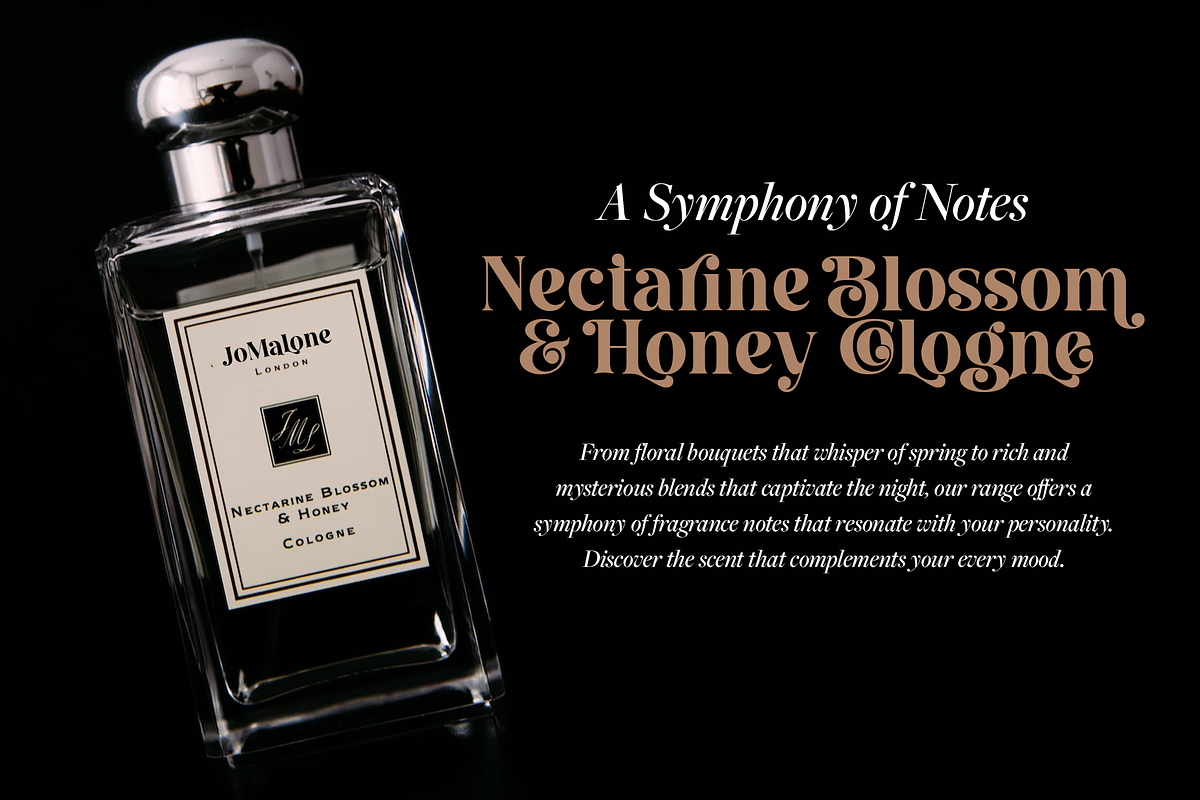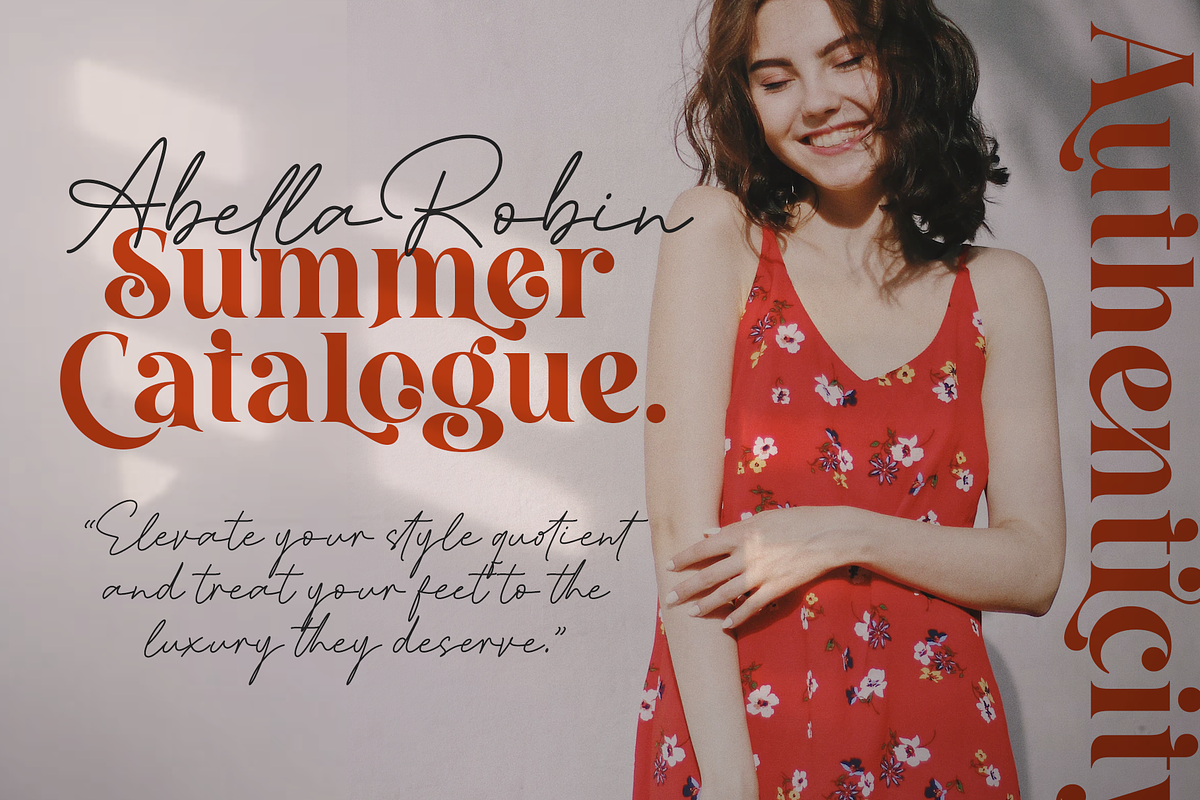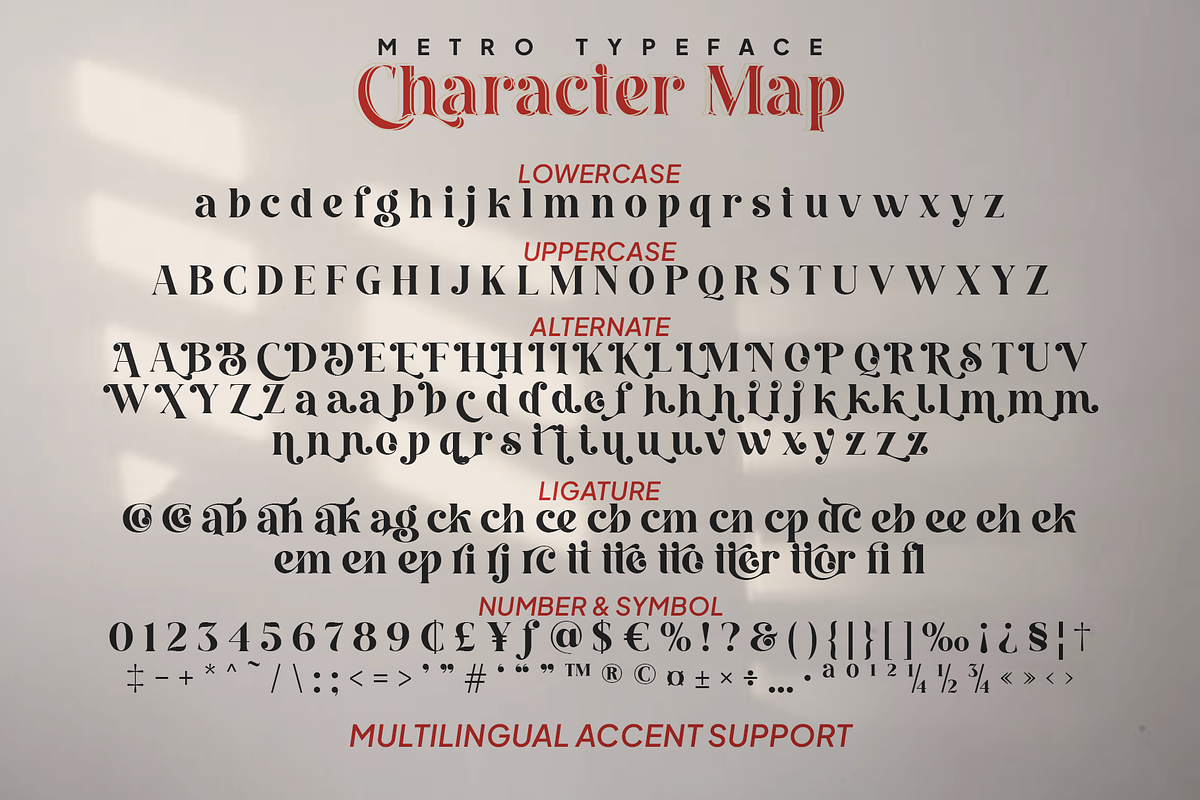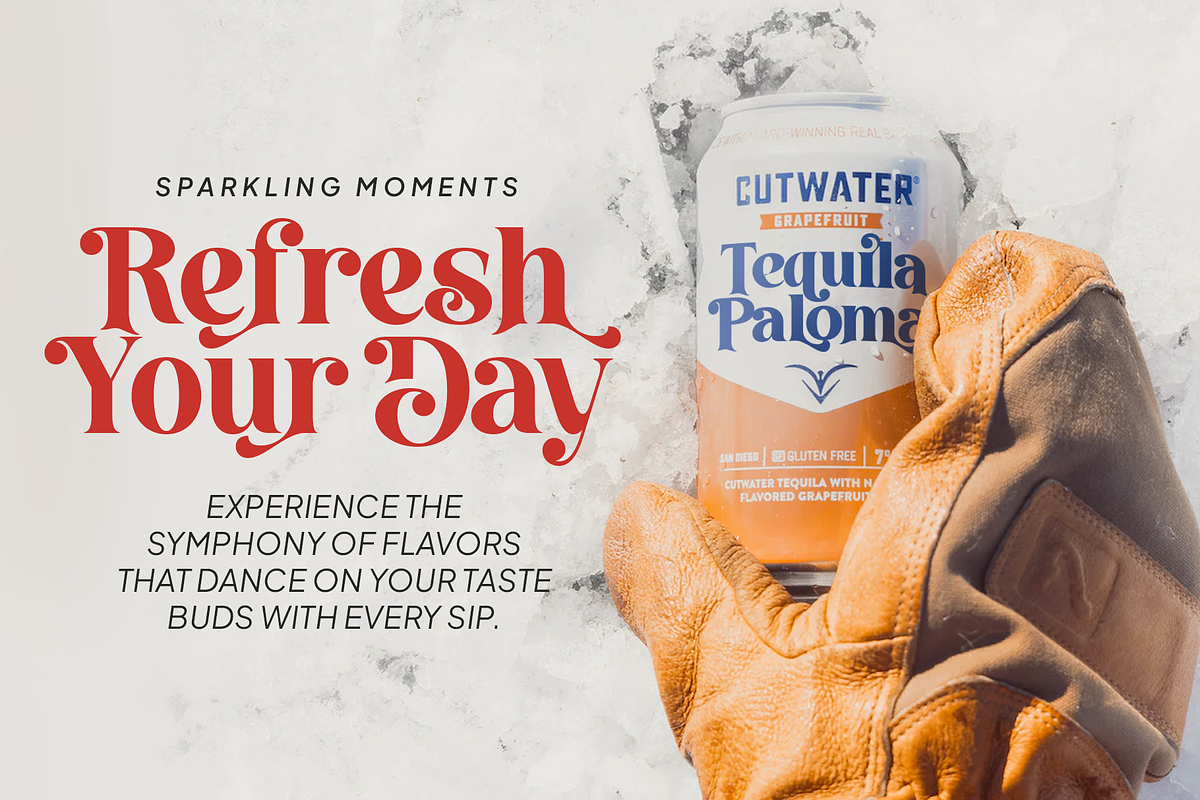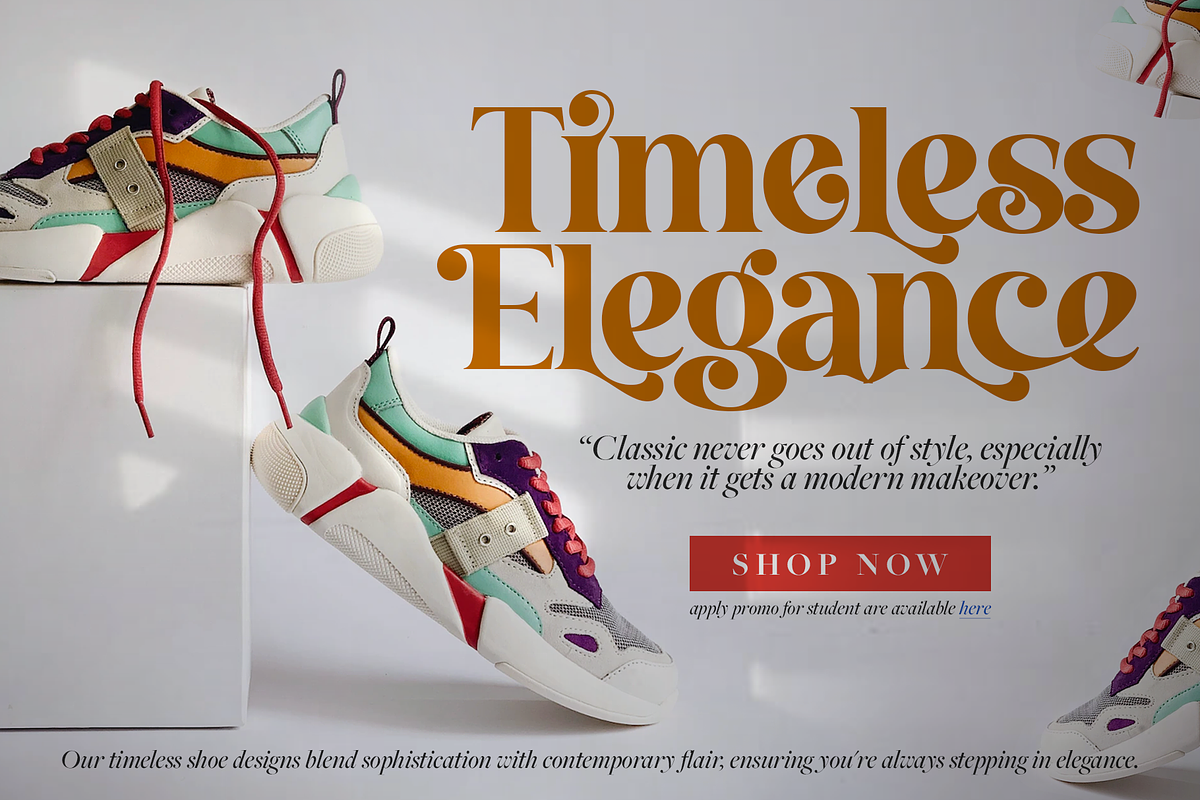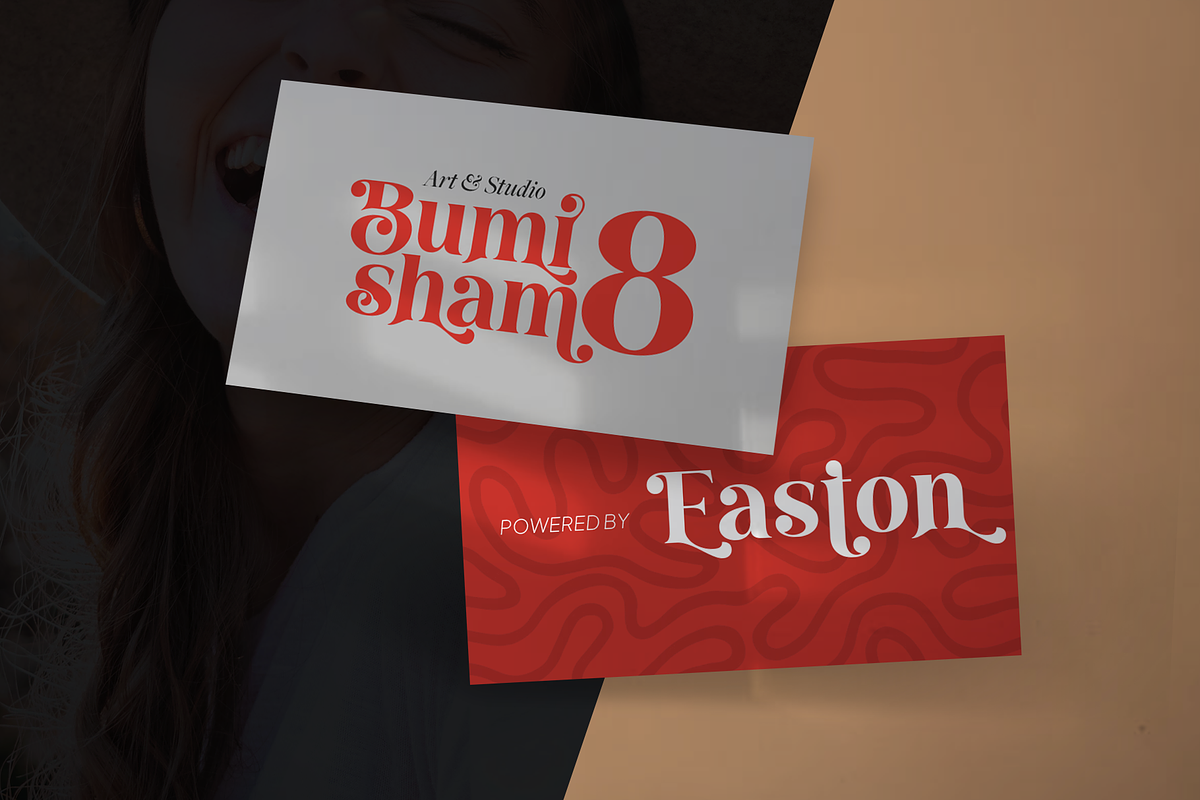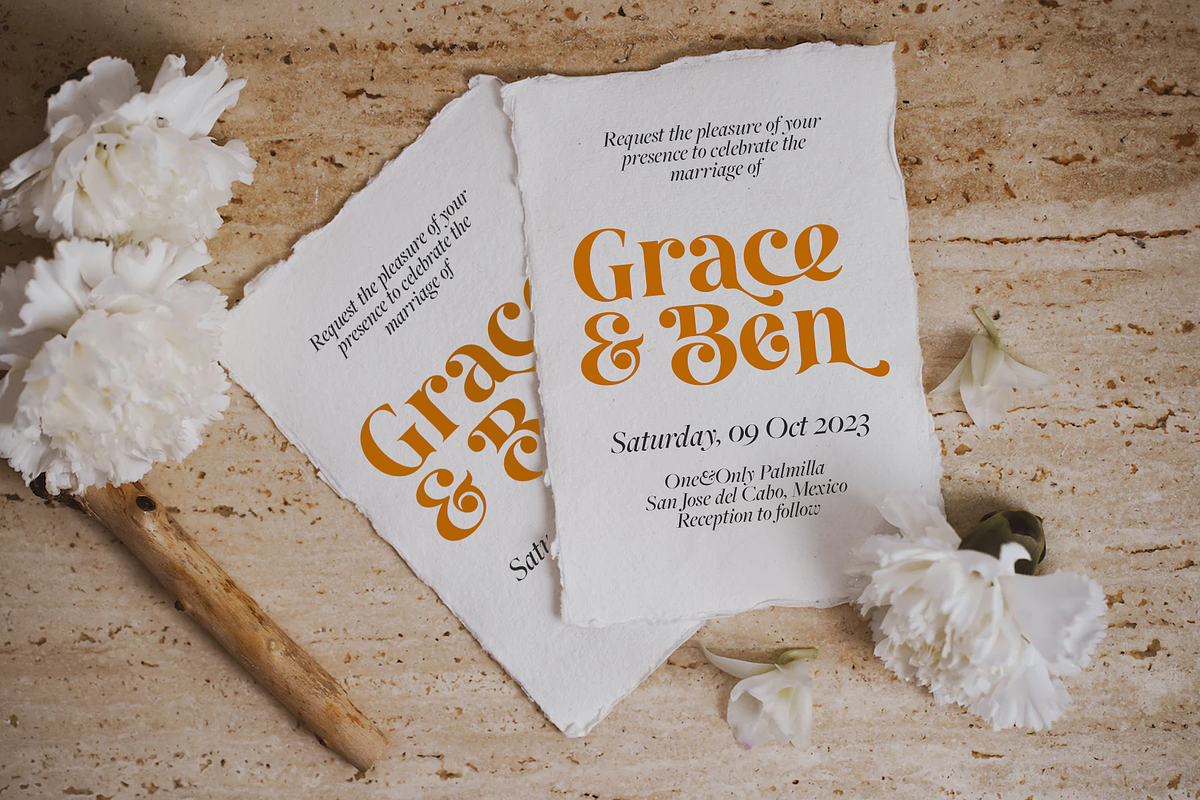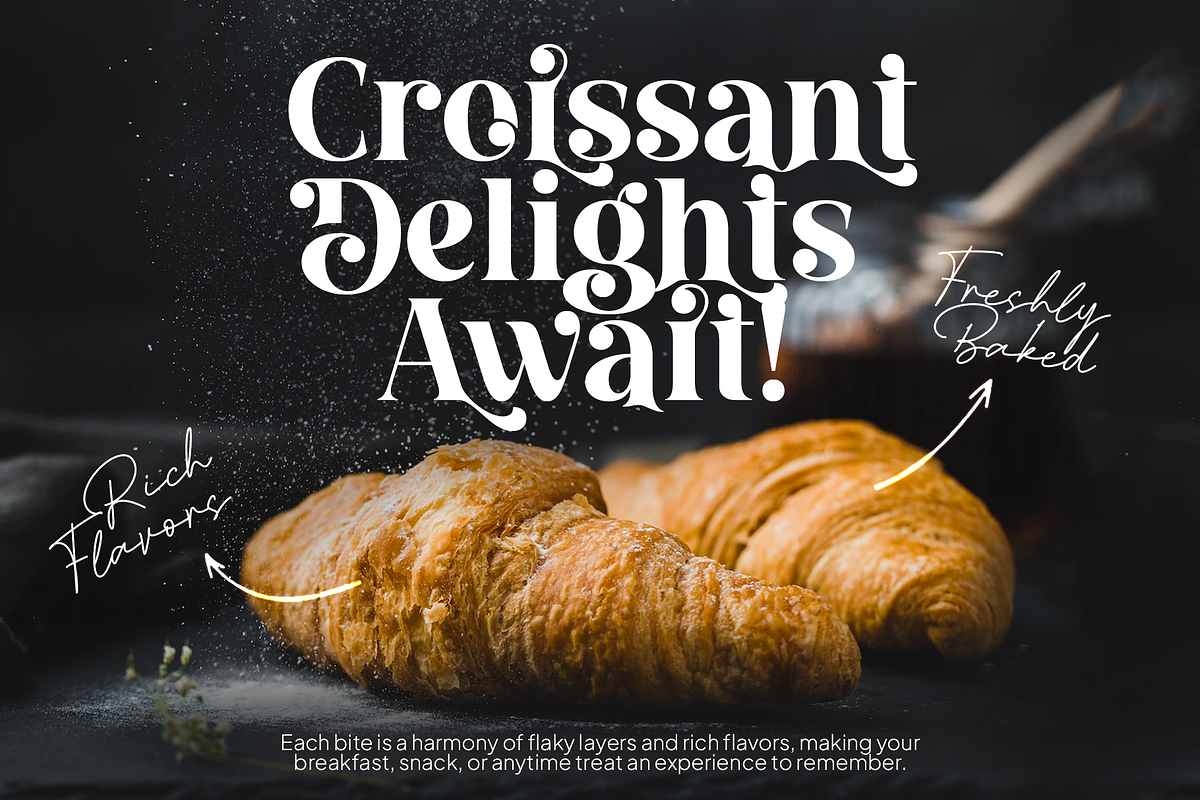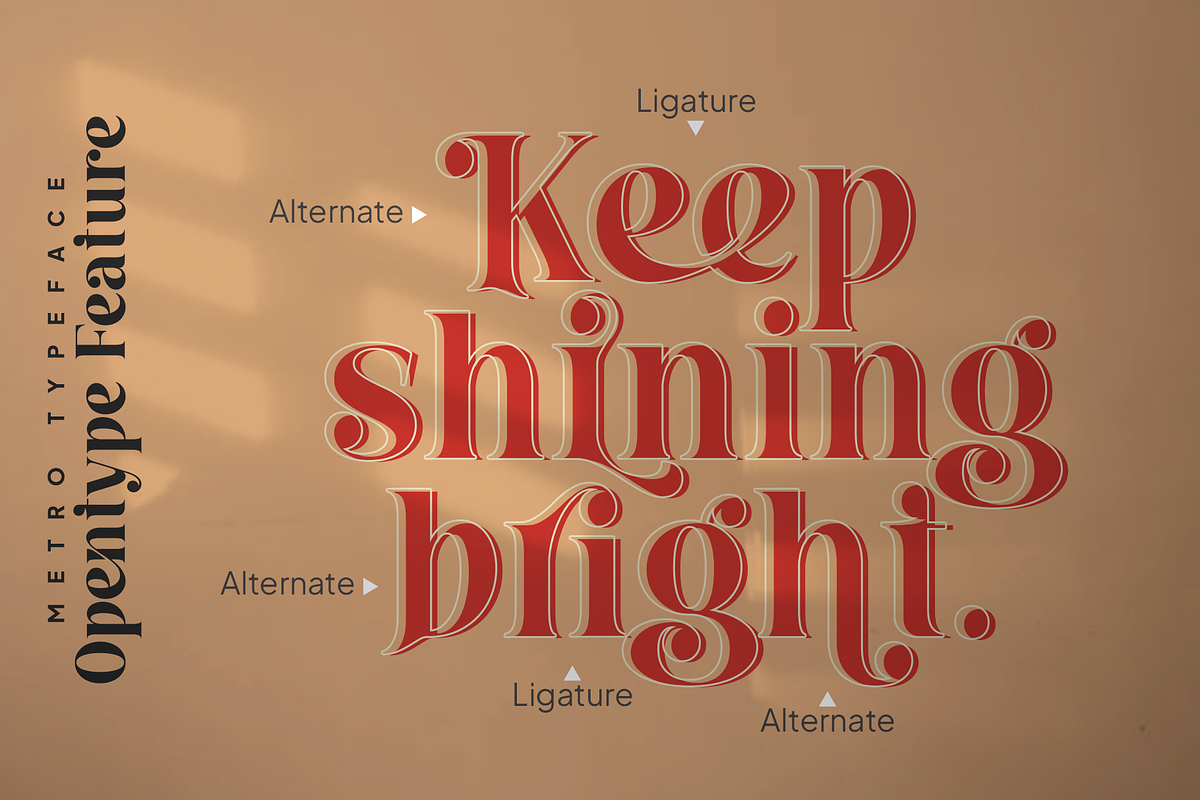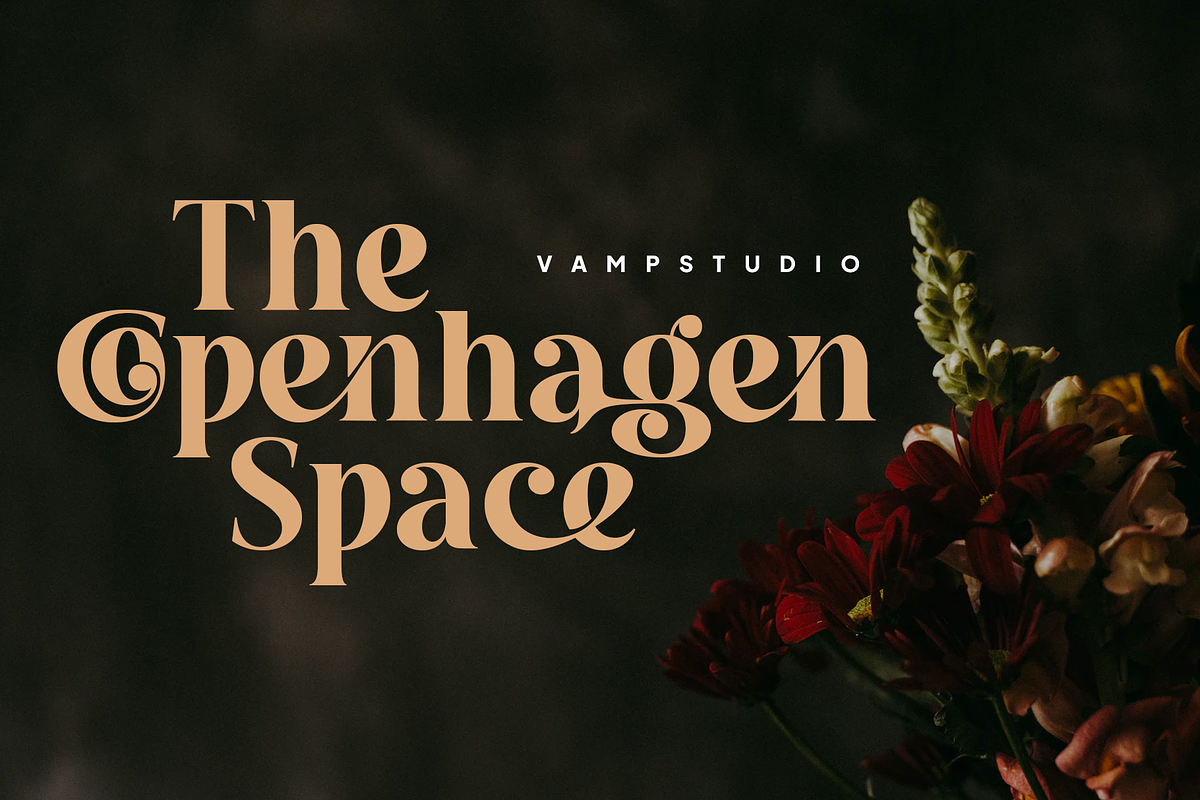
Metro Regular Vintage Retro Serif
Metro Regular is a Vintage elegant serif typeface. This font looks very simple, clean, and elegant. Specially designed by skilled hands makes this font is the perfect fit for all your big projects.
Metro Regular is perfect for branding projects, logo, wedding designs, social media posts, advertisements, product packaging, product designs, label, photography, watermark, invitation, stationery and any projects that need handwriting taste.
- Fonts include multilingual support for; Afrikaans, Albanian, Czech, Danish, Dutch, English, Estonian, -Finnish, French, German, Hungarian, Italian, Latvian, Lithuanian, Norwegian, Polish, Portuguese, Slovak, Slovenian, Spanish, Swedish.